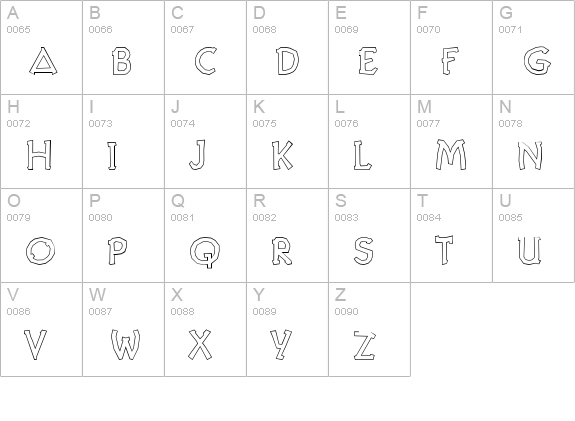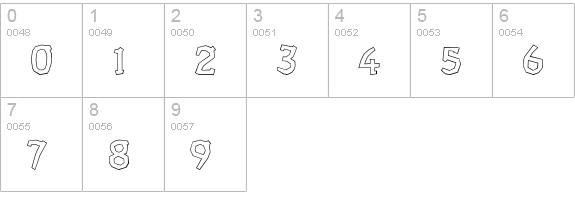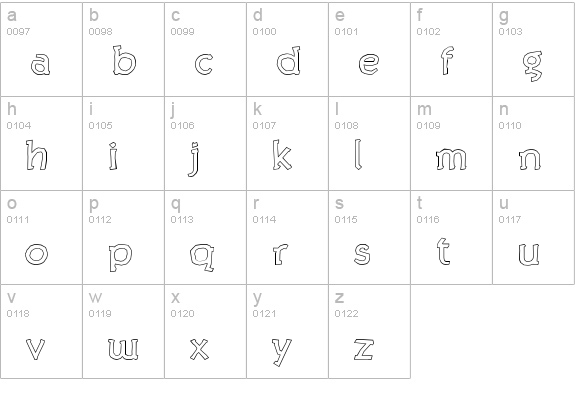
Twig Bold Inline is a strong, high-contrast variant in the Twig typeface family \xE2\x80\x94 well suited to headlines, attention-grabbing titles, and strong calls-to-action.
Introducing Twig Bold Inline font, a stunning and eye-catching typeface designed to make a bold statement. With its unique combination of sleek lines and a touch of whimsy, this font is perfect for adding a touch of modernity and sophistication to your designs. Featuring a bold and impactful aesthetic, Twig Bold Inline font commands attention with its distinctive inline design. Every letter is meticulously crafted to create a seamless flow, allowing for a harmonious balance between elegance and playfulness. Whether you're creating a logo, poster, or any other creative project, Twig Bold Inline font is the ideal choice to make your design stand out from the crowd. Its versatility allows it to adapt effortlessly to both print and digital mediums, ensuring that your message is conveyed with utmost clarity and impact. But the best part? Twig Bold Inline font is absolutely free! You can easily download this remarkable font from FontsMarket.com, a trusted source for high-quality fonts. With just a few clicks, you'll have access to this stunning typeface, ready to elevate your design projects to new heights. Unleash your creativity and let Twig Bold Inline font be the perfect companion to your innovative ideas. Its bold presence and unique style are sure to leave a lasting impression, making your designs truly unforgettable. Embrace the power of this freely available font and discover the limitless possibilities it offers.